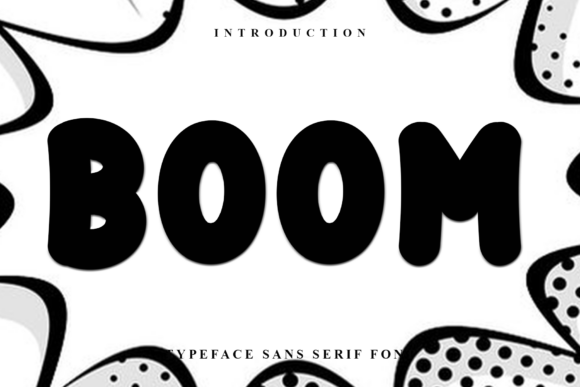
Deck the Halls with Typography
There’s something magical about designing for the holiday season – the twinkling lights, the festive colors, and of course, the fonts that bring it all to life. As a designer, you know that the right typography can make all the difference in capturing the spirit of the season. And that’s where Boom Font comes in – a festive and merry typeface that’s sure to add a touch of enchantment to your designs.
Perfect for greeting cards, gift tags, and holiday-themed projects, Boom Font brings a cheerful and nostalgic ambiance to your words. With its decorative elements and whimsical flair, it’s the perfect way to let your typography shine with the magic of the holiday season. And with its PUA encoding, you can access all of the amazing glyphs and ligatures with ease, making it a valuable addition to any designer’s toolkit.
Boom Font Key Features
- Font Family: Boom Font is a sans-serif font family designed for digital use.
- Unique Characteristics: Boom Font features a bold, energetic, and modern design aesthetic, making it ideal for use in digital products, logos, and branding materials.
- Character Set: Boom Font includes a comprehensive character set, including Latin, Cyrillic, and Greek alphabets, as well as various punctuation and symbol glyphs.
Boom Font Review
Overall, Boom Font is an interesting choice for designers looking to add a touch of playfulness to their projects. ✨ The font’s dynamic, energetic vibe can be a great way to convey excitement and youthfulness in branding and marketing materials.
- ✨ Unique character set: Boom Font offers a range of quirky characters that can help designers add some personality to their work.
- ✨ Versatile: The font can be used in a variety of contexts, from bold headlines to subtle body text.
- ✨ Customizable: Boom Font comes in a range of weights and styles, making it easy to tailor the font to suit specific design needs.
- ⚠️ Limited legibility: In certain contexts, the font’s bold lines and irregular shapes can make it difficult to read, especially at smaller sizes.
- ⚠️ Not suitable for formal designs: Boom Font’s playful, energetic vibe may not be the best fit for formal or professional designs.
Overall, I think Boom Font is a fun and creative choice for designers who want to add some personality to their work. However, it’s not a one-size-fits-all solution, and designers should carefully consider the context and audience before using it.
Getting the Most Out of Boom Font
To get the most out of Boom Font, experiment with different font sizes, colors, and effects to create a unique look. Use the font in combination with other design elements, such as images or shapes, to create a visually appealing design. You can also use the font to create a bold headline or title to draw attention to a specific message.
Boom Font is commonly used in: social media graphics, posters, flyers, business cards, and presentations. It’s also great for creating attention-grabbing headlines or titles for websites, blogs, or e-books.
2. Impact
Impact is a sans-serif font that is designed to be bold and attention-grabbing. It is similar to Boom Font in that it is meant to be used for headings and titles, but it has a more dramatic and aggressive look. Use Impact for headings and titles in designs that need to stand out.
Comparison to Boom Font: Impact is more dramatic and aggressive, while Boom Font is more playful and energetic.
3. Rockwell
Rockwell is a slab-serif font that is designed to be bold and eye-catching. It is similar to Boom Font in that it is meant to be used for headings and titles, but it has a more classic and sophisticated look. Use Rockwell for headings and titles in designs that need to convey a sense of luxury and elegance.
Comparison to Boom Font: Rockwell is more classic and sophisticated, while Boom Font is more playful and energetic.
4. American Typewriter
American Typewriter is a serif font that is designed to be bold and eye-catching. It is similar to Boom Font in that it is meant to be used for headings and titles, but it has a more vintage and nostalgic look. Use American Typewriter for headings and titles in designs that need to convey a sense of history and tradition
Creative Projects with Boom Font
Project 1: Boom Font Explosion Billboard
This project involves creating a visually striking billboard design using the Boom Font. The font’s bold and playful nature makes it perfect for grabbing attention.
How to use Boom Font:
Use Boom Font to create the main headline of the billboard, such as the product name or a catchy slogan. You can also use it for secondary headlines or supporting text.
To create a cohesive look, pair the Boom Font with bold, bright colors and geometric shapes. Consider using a bold, contrasting background color to make the text pop.
Project 2: Boom Font Party Invitation
This project involves creating a fun and playful party invitation design using the Boom Font. The font’s energetic and lively nature makes it perfect for party invitations.
How to use Boom Font:
Use Boom Font to create the main headline of the invitation, such as the party name or a catchy phrase. You can also use it for secondary text, such as the date and time.
To create a festive look, pair the Boom Font with bright, party-themed colors and playful illustrations. Consider adding confetti or balloons to the design to give it a celebratory feel.
Project 3: Boom Font Retro Arcade Game
This project involves creating a retro-style arcade game design using the Boom Font. The font’s bold and playful nature makes it perfect for creating a nostalgic feel.
How to use Boom Font:
Use Boom Font to create the game’s title, score display, or other text elements. You can also use
Boom Font FAQs
What is Boom Font and how does it work?
Boom Font is a font style that uses a combination of bold and italic styles to create a dynamic, explosive effect. It works by applying a custom font rendering technique that emphasizes certain characters to create a sense of depth and dimension. This technique involves using OpenType features such as stylistic sets and positional forms to manipulate the font’s appearance.
Is Boom Font compatible with all operating systems and browsers?
Boom Font is designed to be compatible with modern operating systems and browsers, including Windows, macOS, and Linux, as well as popular browsers such as Google Chrome, Mozilla Firefox, and Safari. However, due to the custom font rendering technique used, it may not render correctly in older browsers or systems that do not support OpenType features.
How do I install and use Boom Font in my design projects?
To install Boom Font, simply download the font file and add it to your project’s font directory. You can then use the font in your design projects using a font management software such as Adobe Creative Cloud or a text editor such as Adobe Illustrator. Boom Font is available in various formats, including OTF, TTF, and WOFF, so you can choose the format that best suits your needs.
Can I modify Boom Font to create custom styles or effects?